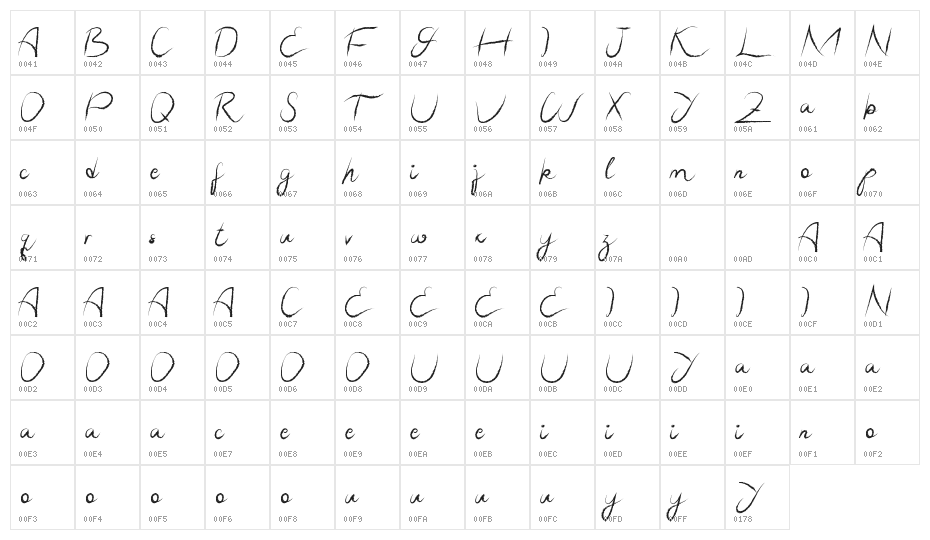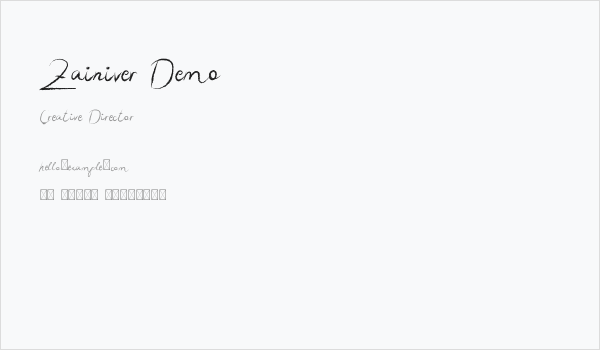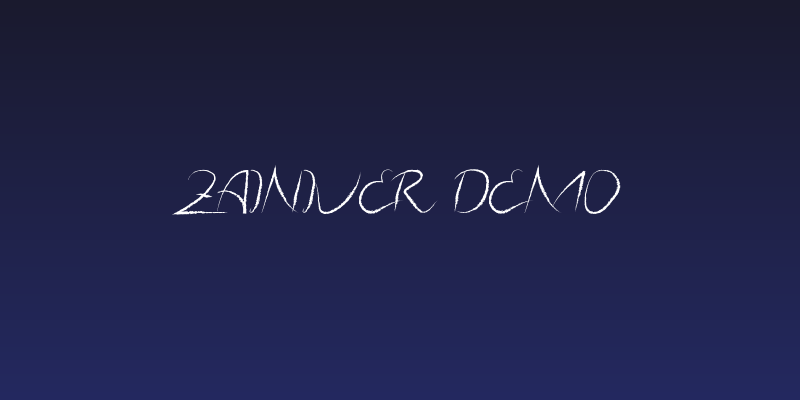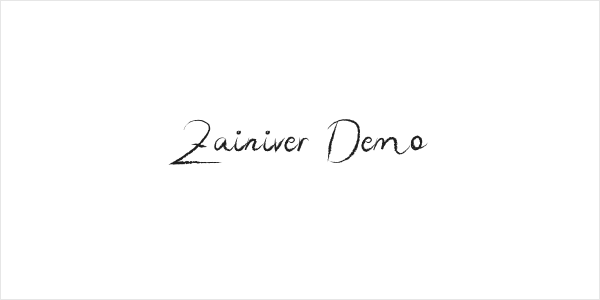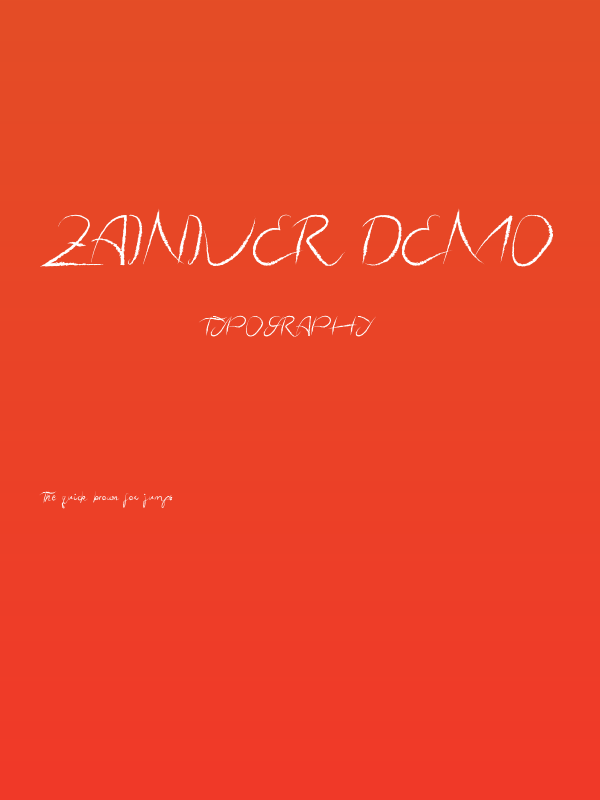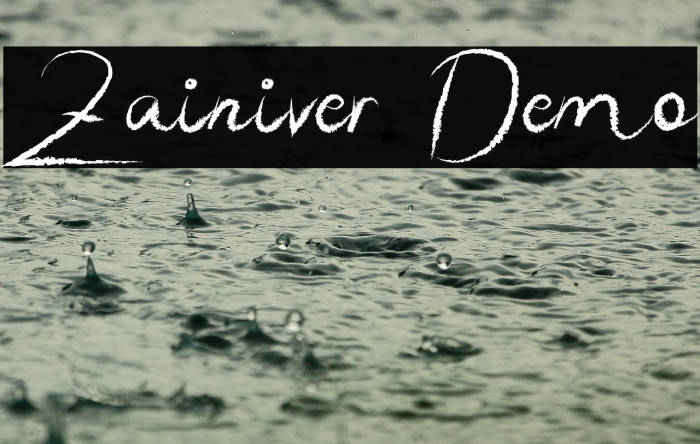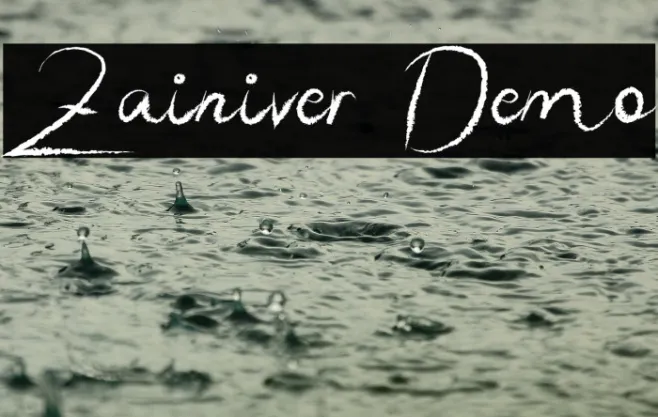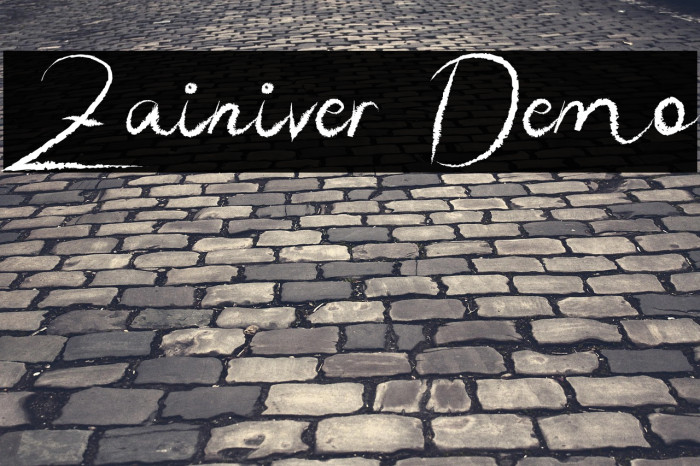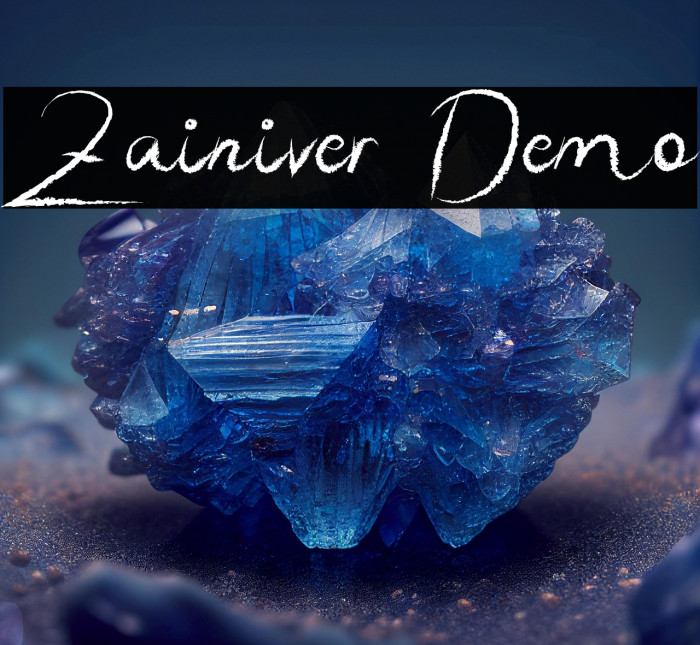
Zainiver Demo Font
Zainiver Demo Description
This font exhibits a dynamic and expressive handwritten style, characterized by its fluid and cursive letterforms. The uppercase letters are elongated and slightly slanted, giving a sense of motion and elegance. The lowercase letters maintain a consistent flow, with some characters featuring distinctive loops and swashes that add to the overall artistic flair. The strokes vary in thickness, creating a medium contrast that enhances readability while preserving the font's decorative nature. The font's organic appearance is reminiscent of personal handwriting, making it suitable for projects that require a personal touch.